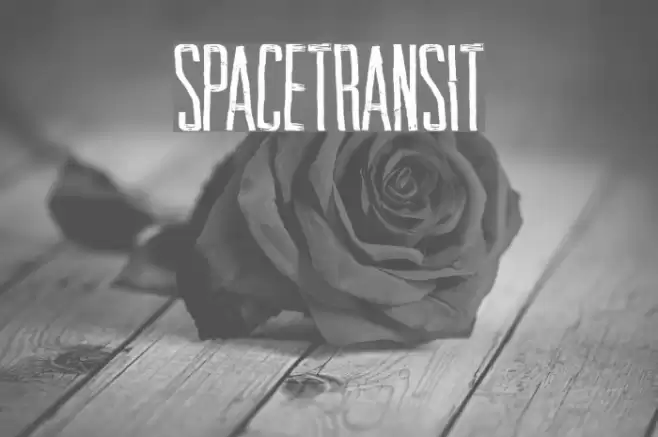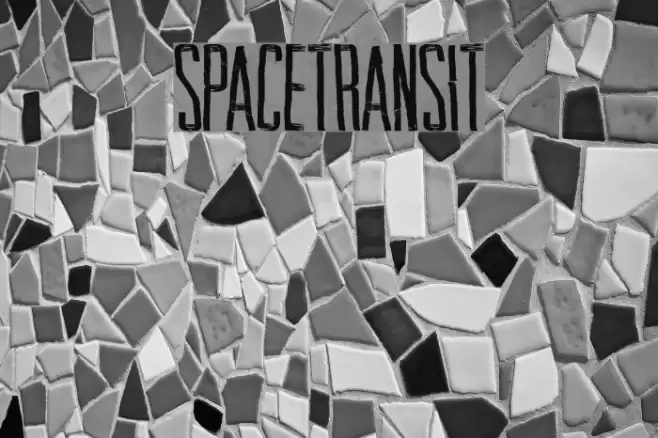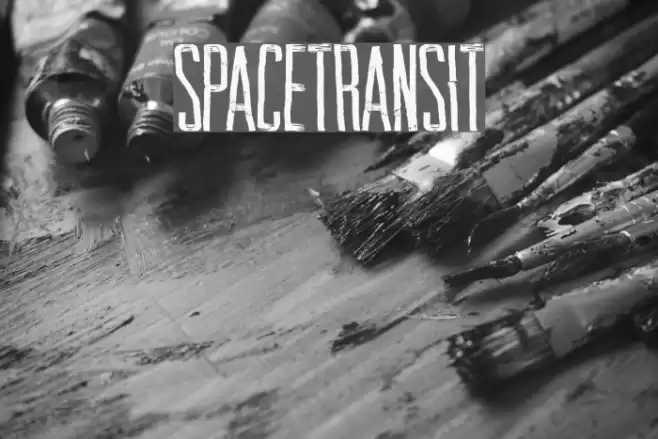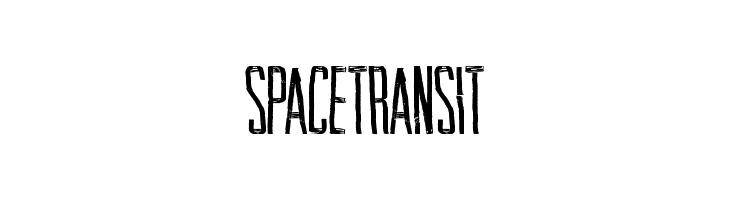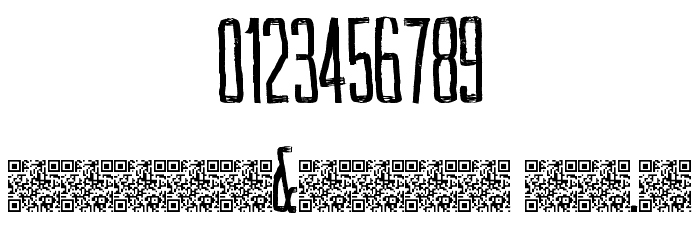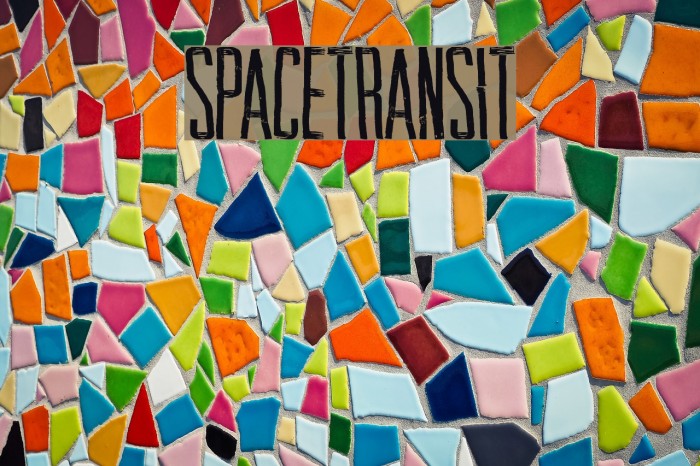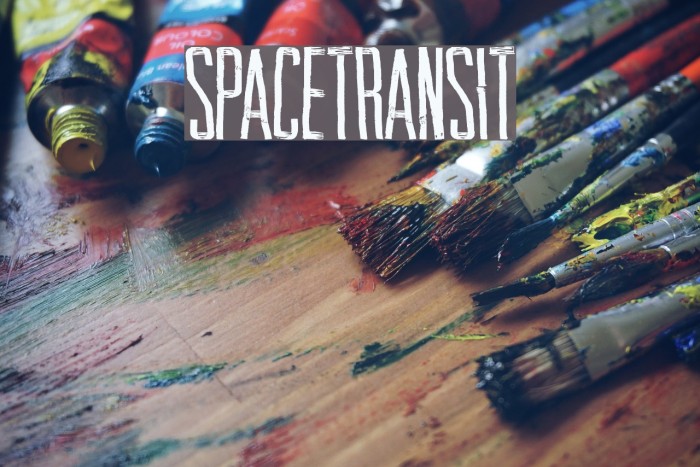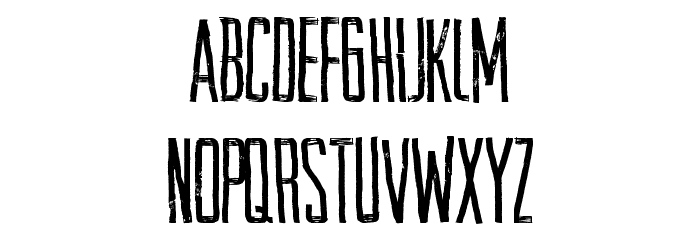
SpaceTransit Font
SpaceTransit Description
This font features a distressed, textured appearance, giving it a rugged and worn look. The characters are tall and narrow, with uneven edges that suggest a hand-crafted or vintage style. The uppercase and lowercase letters maintain a consistent height, contributing to a uniform appearance despite the distressed detailing. Numbers and special characters share the same textured quality, ensuring a cohesive look across all glyphs. The font's unique style makes it suitable for projects that require a bold, eye-catching typeface with a touch of nostalgia or a retro vibe.
A distressed, textured font with a rugged, vintage appearance from Distorted Eroded fonts.
- Proposed Projects: Ideal for posters, branding, album covers, and any design needing a vintage or retro touch.
- Overall Style: Vintage